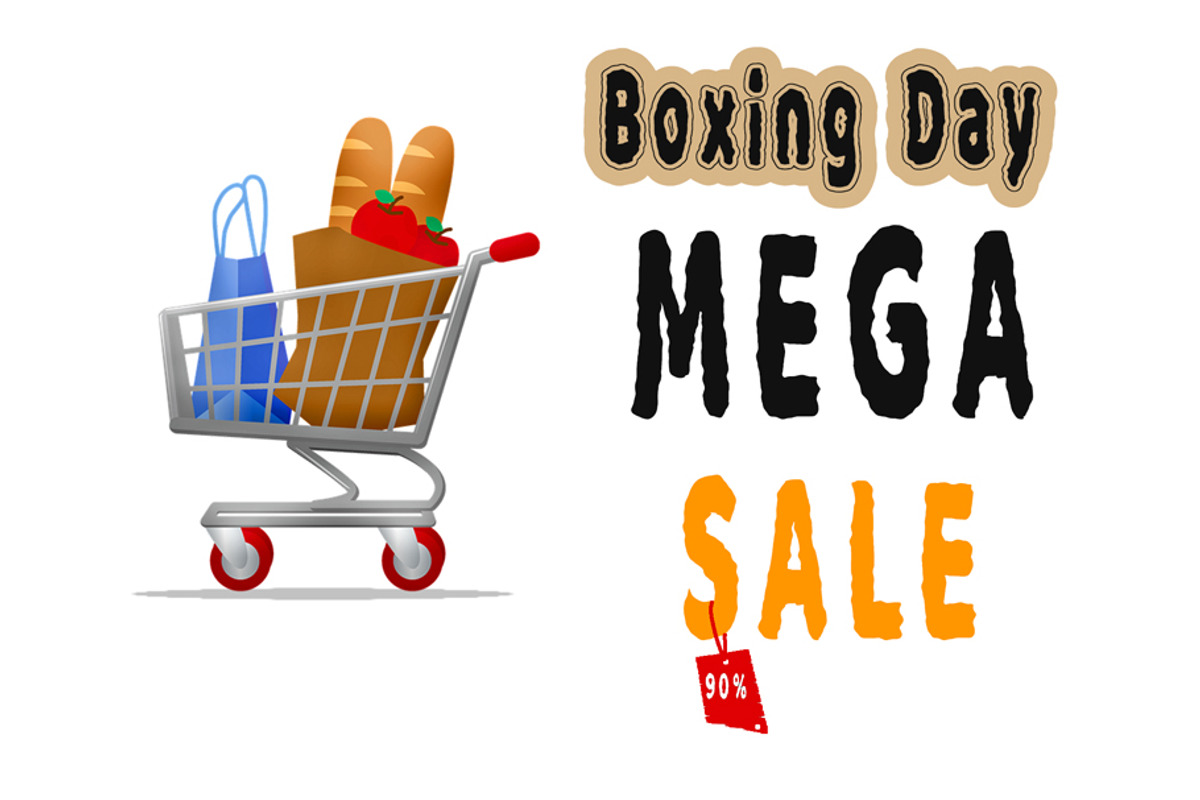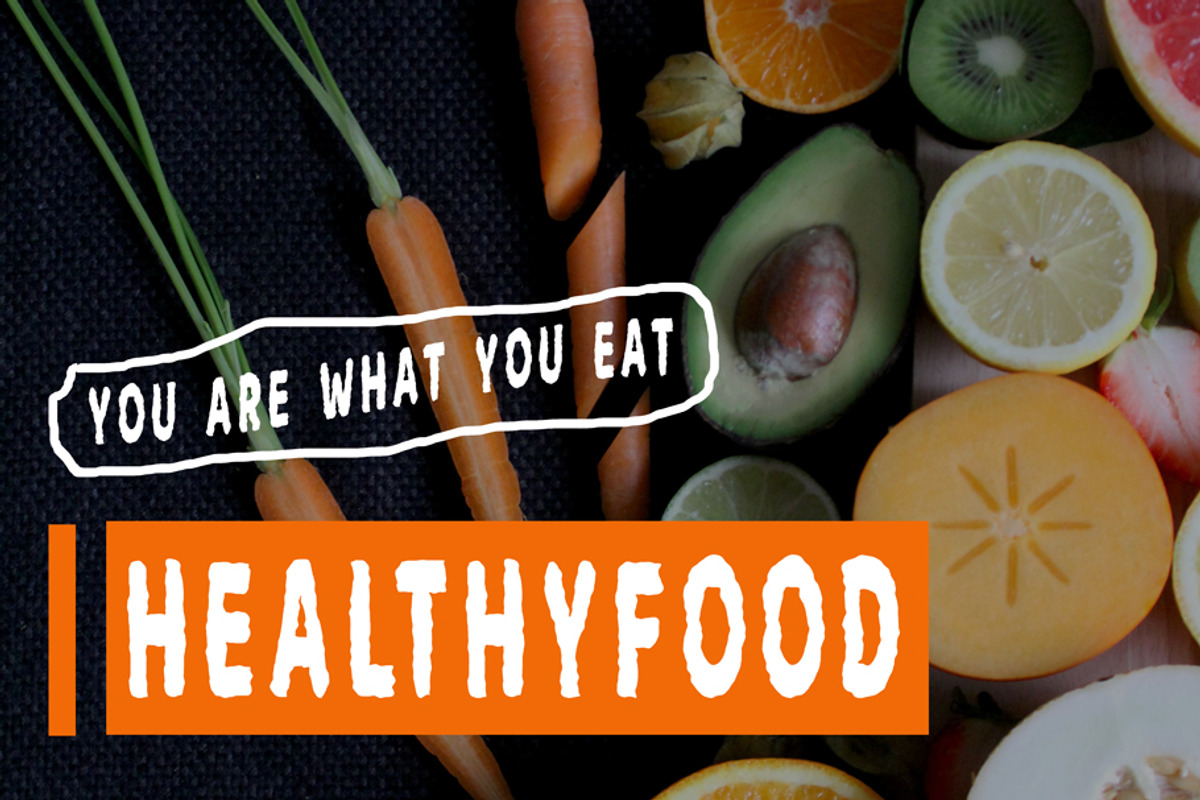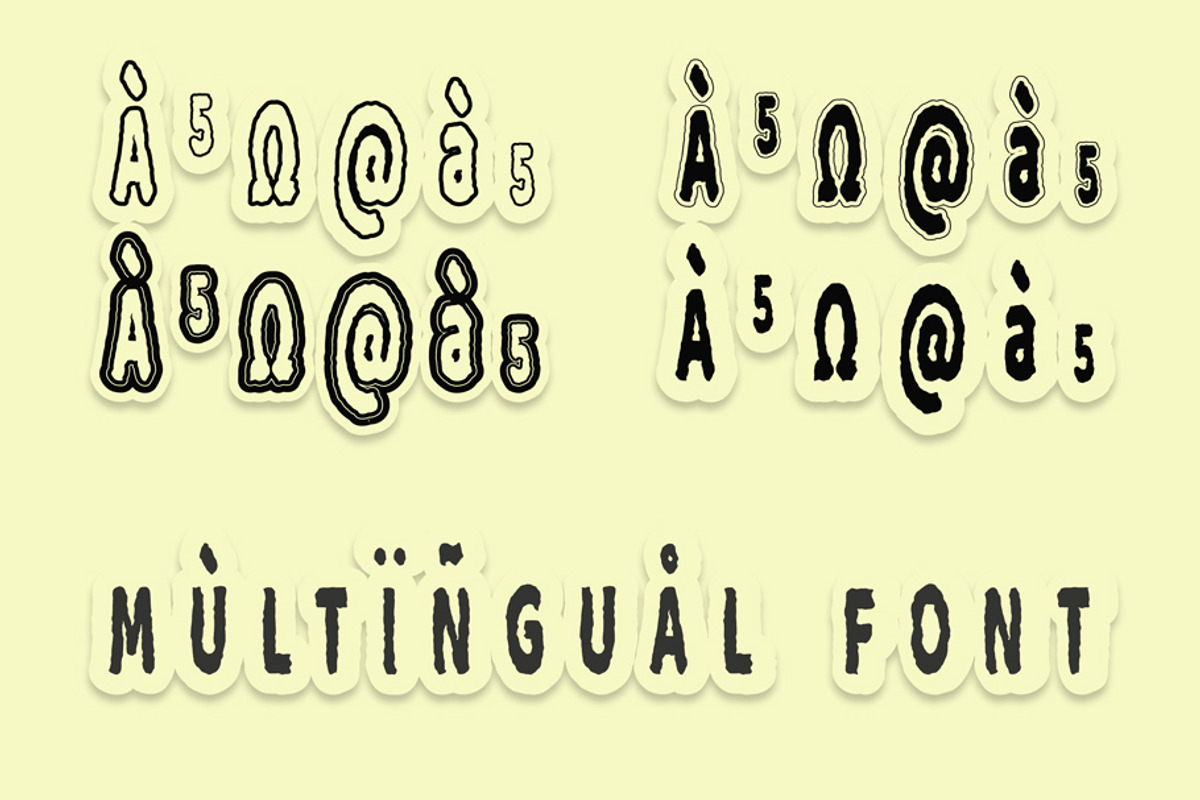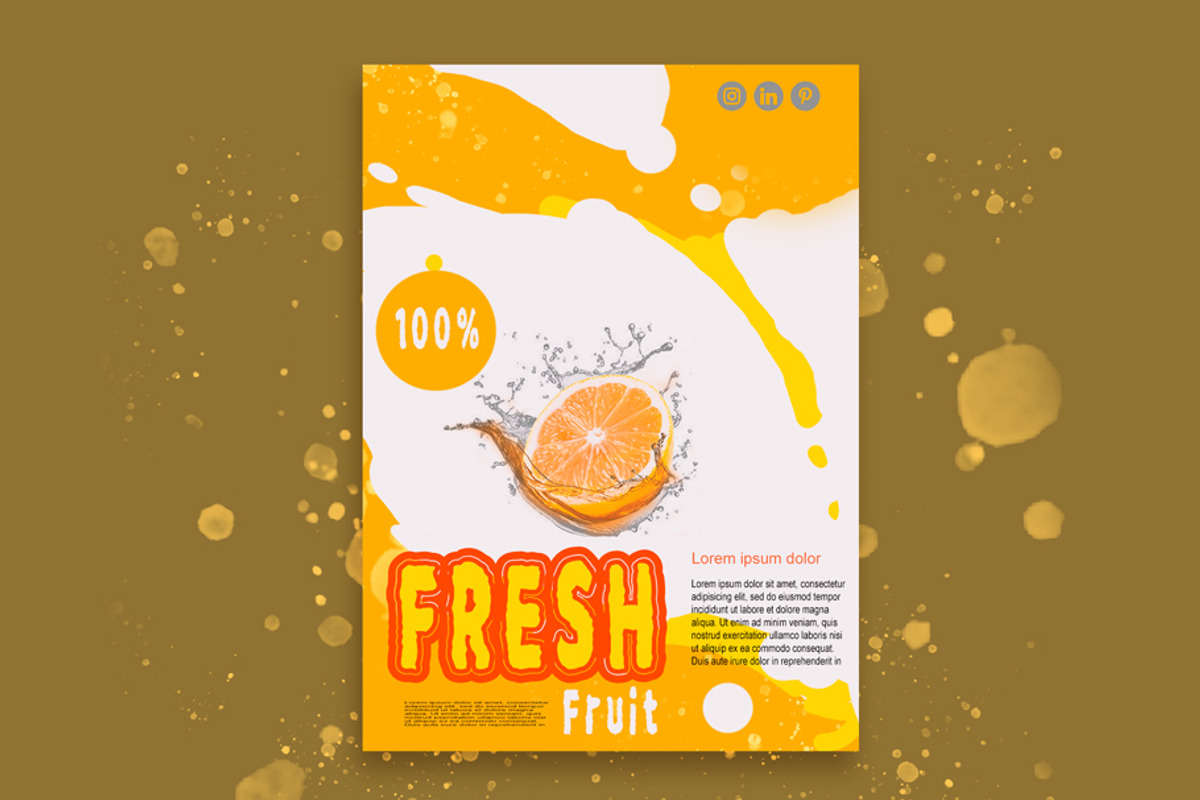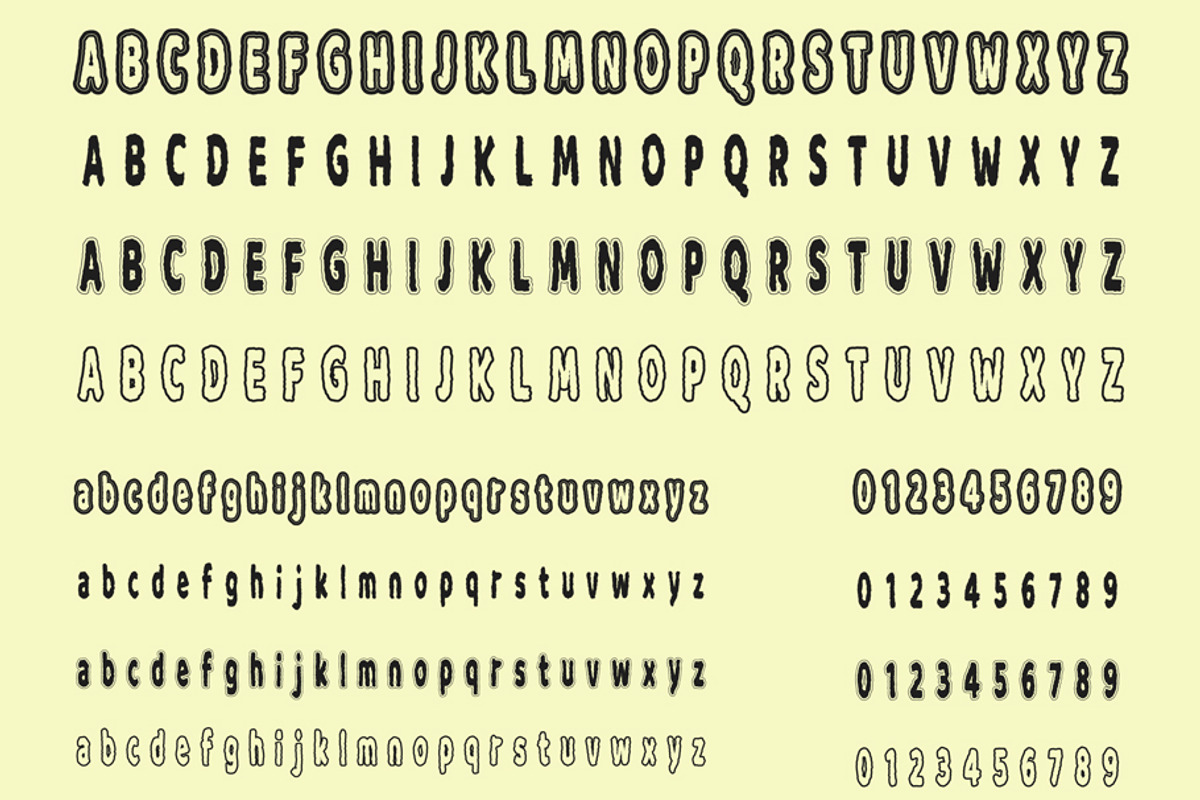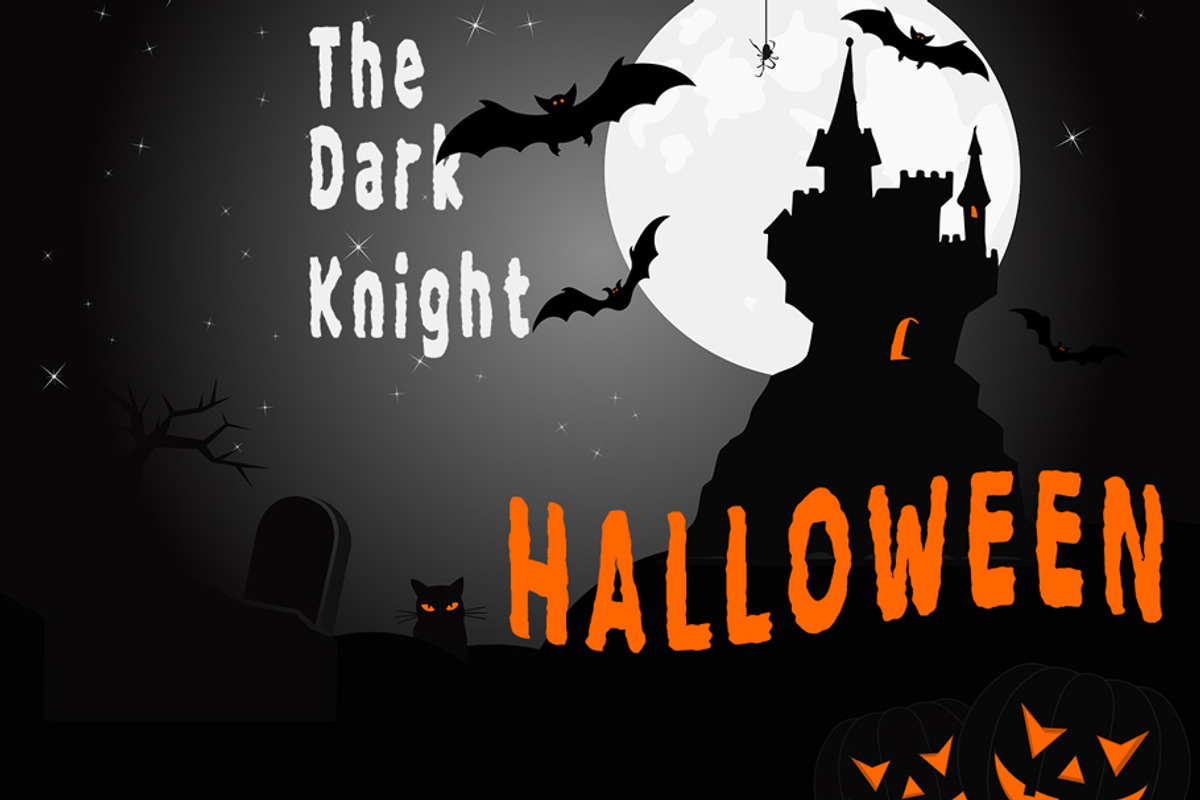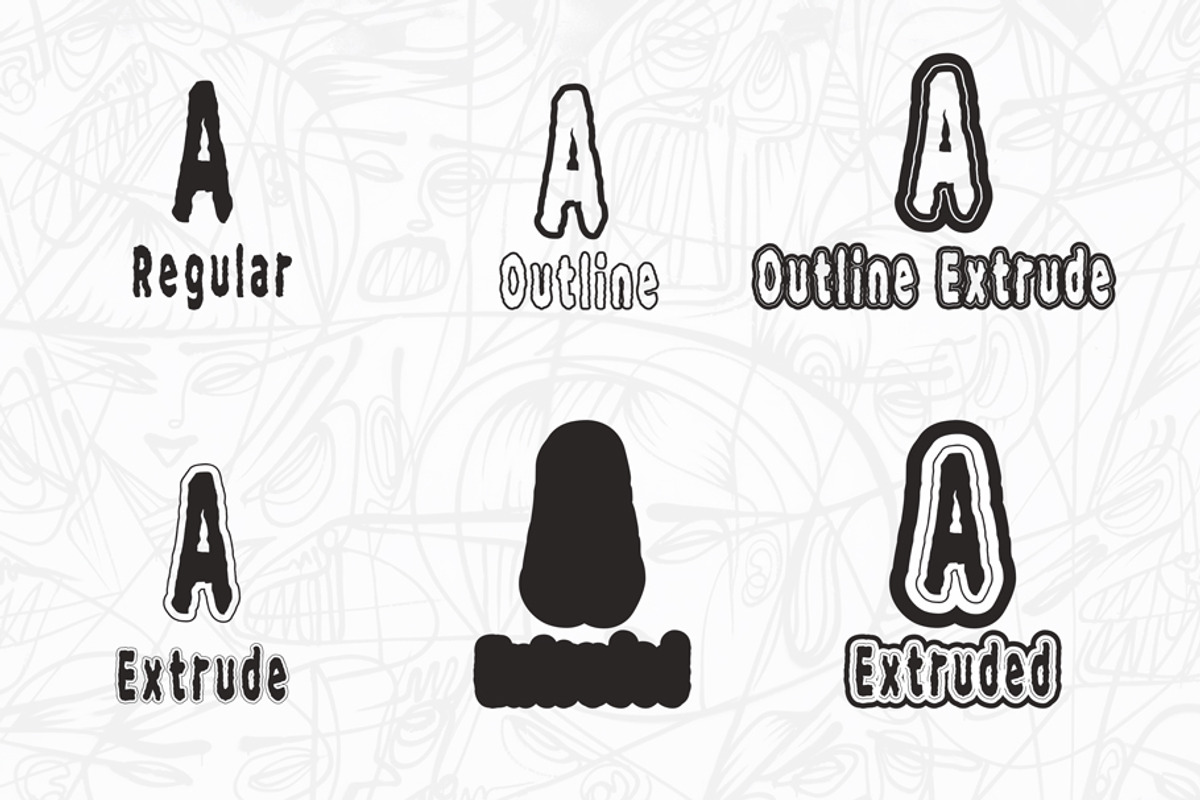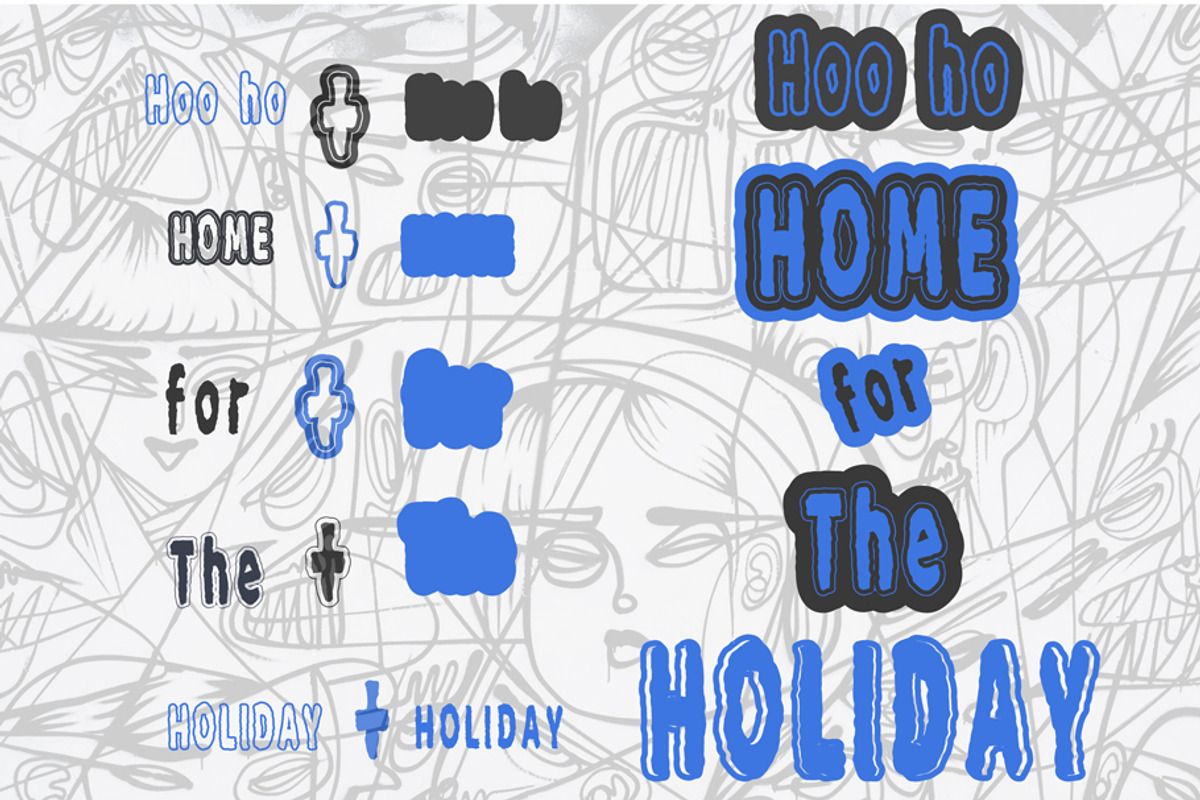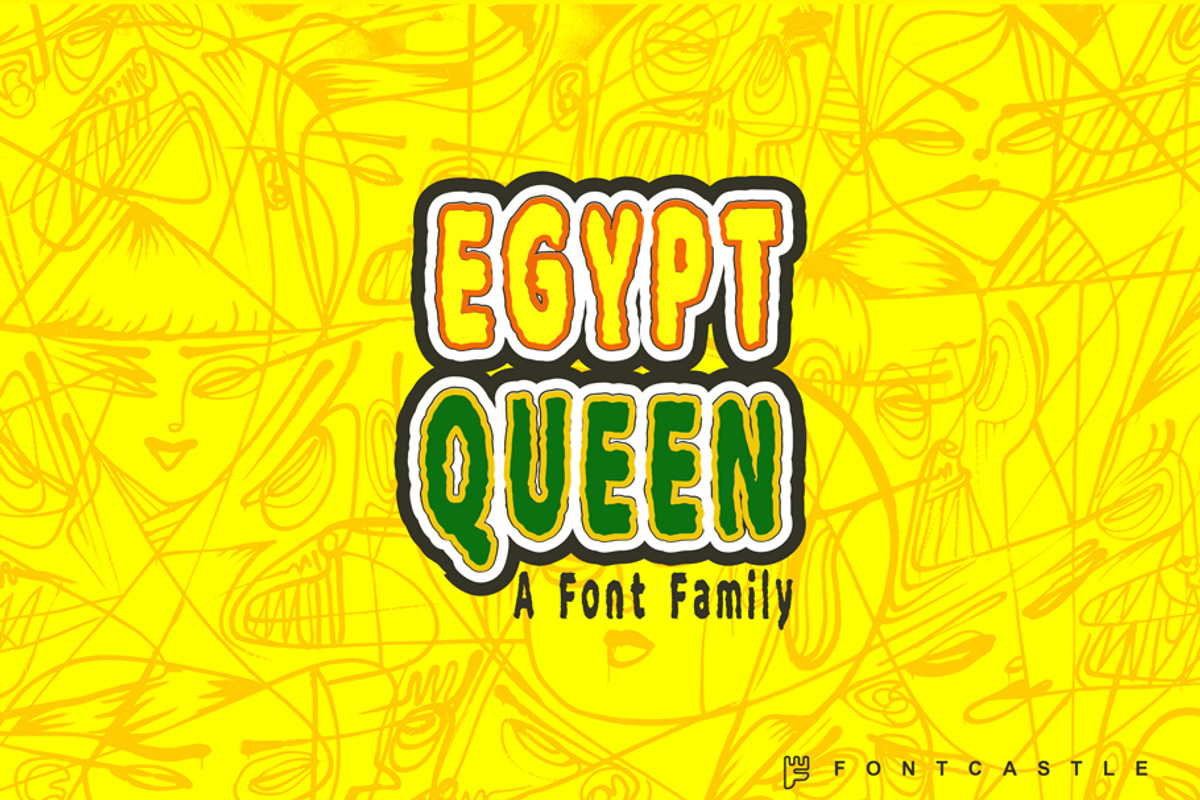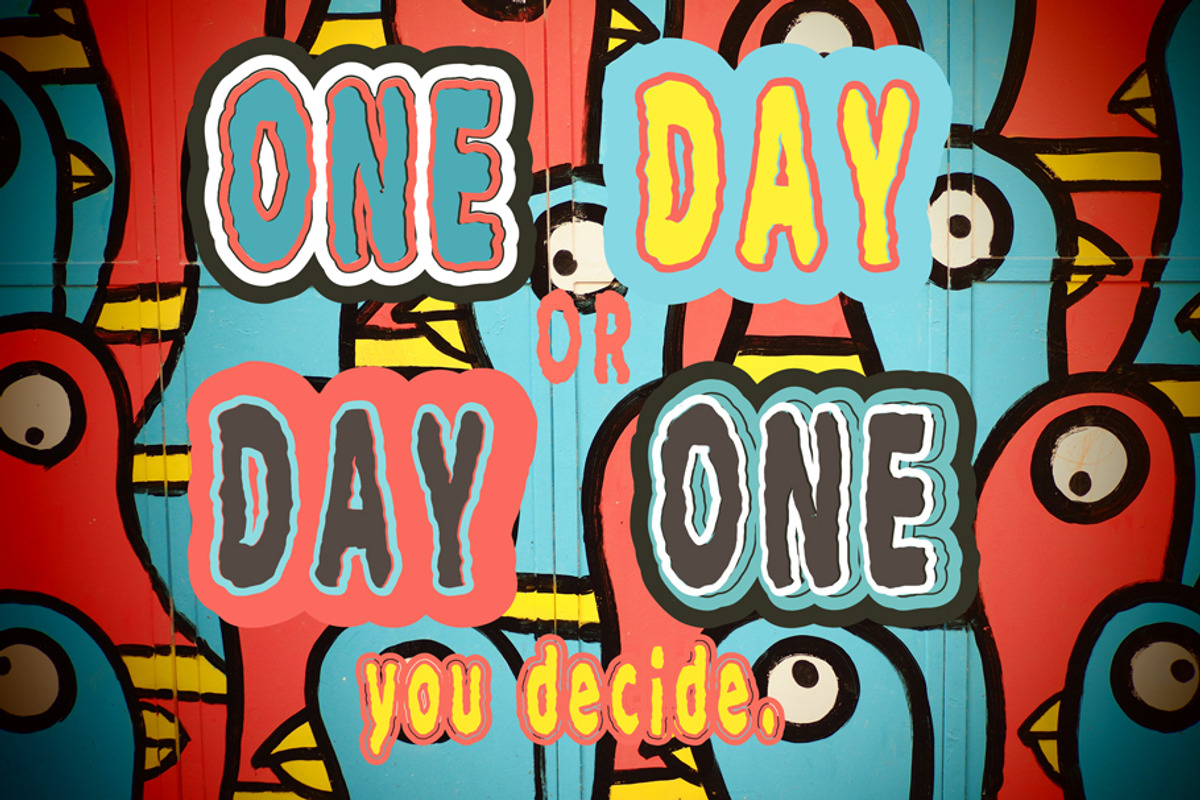
Egypt Queen Collection
Introducing The Regular, extrude & outline EGYPT QUEEN font family collection.
EGYPT QUEEN is a beautiful paint brushed handwritten font. EGYPT QUEEN font His outlines are slightly off, his corners are irregular, his straights aren't straight, but he's cool with it. It is very impactful and artsy and it will elevate each of your creations to the highest levels!
- EGYPT QUEEN Regular
- EGYPT QUEEN Extrude
- EGYPT QUEEN Extruded Block
- EGYPT QUEEN Outline
- EGYPT QUEEN Outline Extrude